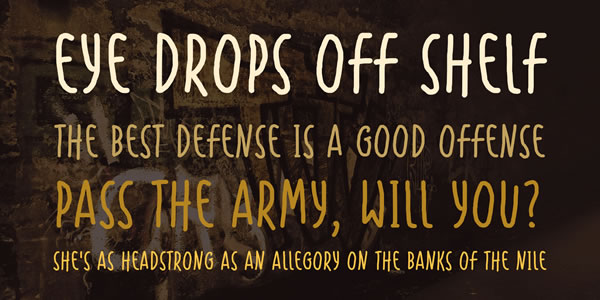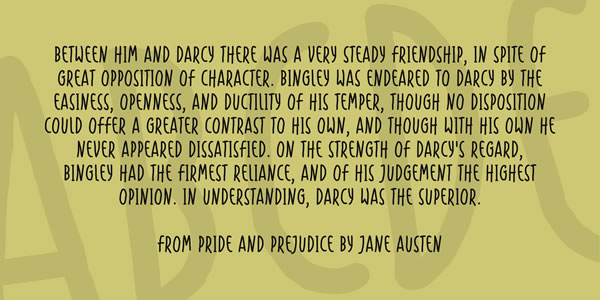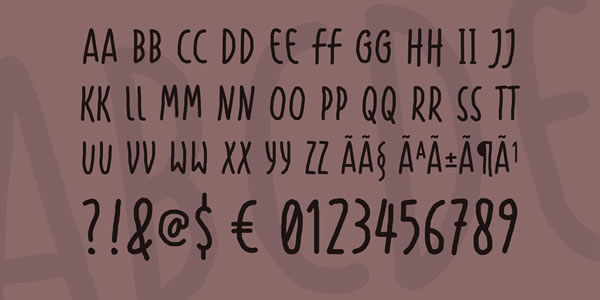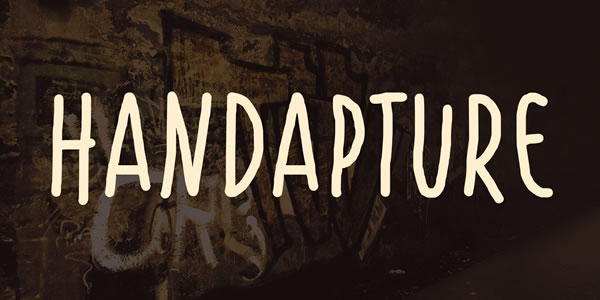
Discover the Unique Charm of Handapture Font: A Creative Marvel by Situjuh Nazara
In the vast universe of typography, where fonts are as diverse as the emotions they evoke, Handapture stands out as a beacon of creativity and uniqueness. Crafted by the talented Situjuh Nazara, Handapture is not just a font; it’s an experience. It’s a bridge between the traditional and the modern, the elegant and the quirky. If you’re a designer, a crafter, or simply someone who appreciates the art of typography, Handapture is a gem you won’t want to overlook.
The Genesis of Handapture
Situjuh Nazara, the creative mind behind Handapture, is known for pushing the boundaries of typographic design. With a keen eye for detail and a passion for innovation, Nazara embarked on a journey to create a font that would capture the essence of handwriting while boasting a uniqueness that sets it apart from the myriad of fonts available today. And thus, Handapture was born.
Characteristics of Handapture Font
Handapture is a font that exudes personality. Its characteristics can be summarized as follows:
- Unique Design: Handapture boasts a distinctive design that blends the organic feel of handwriting with a structured and clean aesthetic.
- Versatility: This font is incredibly versatile, making it suitable for a wide range of projects, from branding and advertising to packaging and digital media.
- Readability: Despite its unique flair, Handapture maintains a high level of readability, making it a practical choice for both headlines and body text.
- Expressive: The font’s design allows for a great deal of expression, enabling designers to convey a wide range of emotions and tones.
Why Designers and Crafters Love Handapture
For designers and crafters, finding the right font can often be a daunting task. You need something that not only looks great but also complements your work and helps you stand out. Here are a few reasons why Handapture has become a favorite among creatives:
- Creativity Unleashed: Handapture offers a fresh perspective on typography, allowing designers to unleash their creativity and produce work that is truly original.
- Time-Saving: With its versatility and readability, Handapture can be used across various projects, saving designers time and effort in searching for multiple fonts.
- Emotional Connection: The font’s unique design helps create an emotional connection with the audience, making your work more engaging and memorable.
How to Use Handapture Effectively
To get the most out of Handapture, consider the following tips:
- Pair it Wisely: Combine Handapture with complementary fonts to create visual interest and hierarchy in your designs.
- Play with Sizes: Experiment with different sizes to emphasize certain words or phrases and add depth to your text.
- Adjust the Color: Don’t be afraid to play with color. Handapture looks great in bold, bright colors as well as subtle, muted tones.
Handapture, crafted by the visionary Situjuh Nazara, is more than just a font; it’s a tool for creative expression. Its unique blend of traditional and modern elements, combined with its versatility and readability, makes it an invaluable asset for designers and crafters. Whether you’re working on a branding project, creating art, or simply exploring the world of typography, Handapture is sure to inspire and elevate your work. So, dive into the world of Handapture and discover a new realm of creative possibilities.